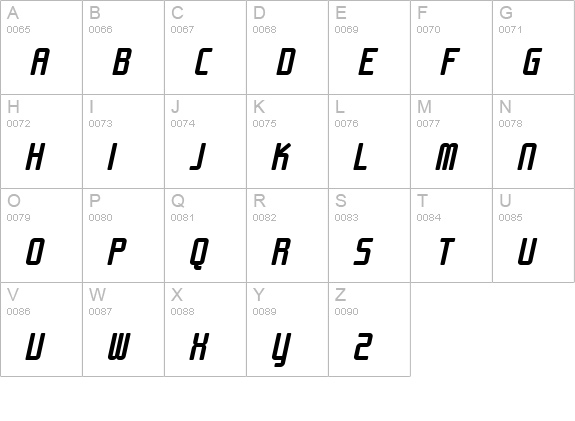
SF Chrome Fenders Bold Oblique Font Details
SF Chrome Fenders Bold Oblique is a strong, high-contrast, italic variant in the SF typeface family \xE2\x80\x94 well suited to headlines, attention-grabbing titles, and strong calls-to-action.
SF Chrome Fenders Bold Oblique is a striking and edgy font that exudes a sense of modernity and innovation. With its bold and oblique design, this font is perfect for adding a touch of sophistication and uniqueness to any project. The sleek lines and sharp angles of SF Chrome Fenders Bold Oblique make it stand out from the crowd, capturing attention and leaving a lasting impression. Its strong presence on the page demands attention and conveys a sense of confidence and strength. This font is not only visually appealing but also incredibly versatile. It can be used for a wide range of design purposes, from logos and headlines to posters and advertisements. Its bold and oblique nature adds a dynamic and energetic feel to any text, making it perfect for projects that require a modern and bold aesthetic. One of the best things about SF Chrome Fenders Bold Oblique is that it is available for free! You can download this font at FontsMarket.com, where it is freely available to all users. This means that you can enjoy the benefits of this stylish font without having to spend a dime. So whether you're working on a personal project or a professional design, SF Chrome Fenders Bold Oblique is a font that will make a statement. Its bold and oblique design, combined with its versatility and free availability, make it a must-have for any designer or creative individual. Download SF Chrome Fenders Bold Oblique today and let your creativity soar!